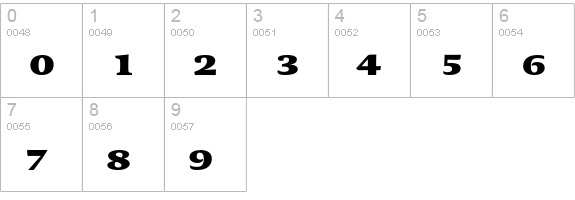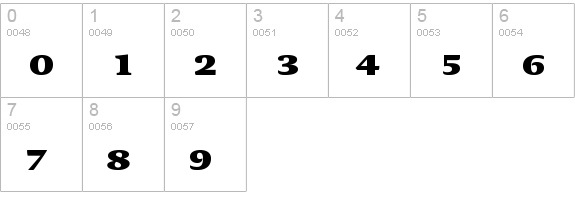
DTLDorianTCaps-Heavy is a heavy, high-impact variant in the DTLDorianTCaps typeface family \xE2\x80\x94 well suited to high-impact headlines, posters, and display advertising.
DTLDorianTCaps-Heavy is a bold and impactful font that exudes strength and authority. Its sturdy and blocky letterforms make a strong statement, perfect for headlines, titles, and branding projects. Despite its heavy weight, this font maintains a sense of elegance and sophistication. This versatile typeface is ideal for a wide range of design applications, from posters and packaging to logos and signage. Its distinctive style will help your designs stand out and make a lasting impression on viewers. Best of all, DTLDorianTCaps-Heavy is available for free download at FontsMarket.com. Don't miss out on the opportunity to add this powerful font to your collection and enhance your creative projects with its bold and commanding presence.